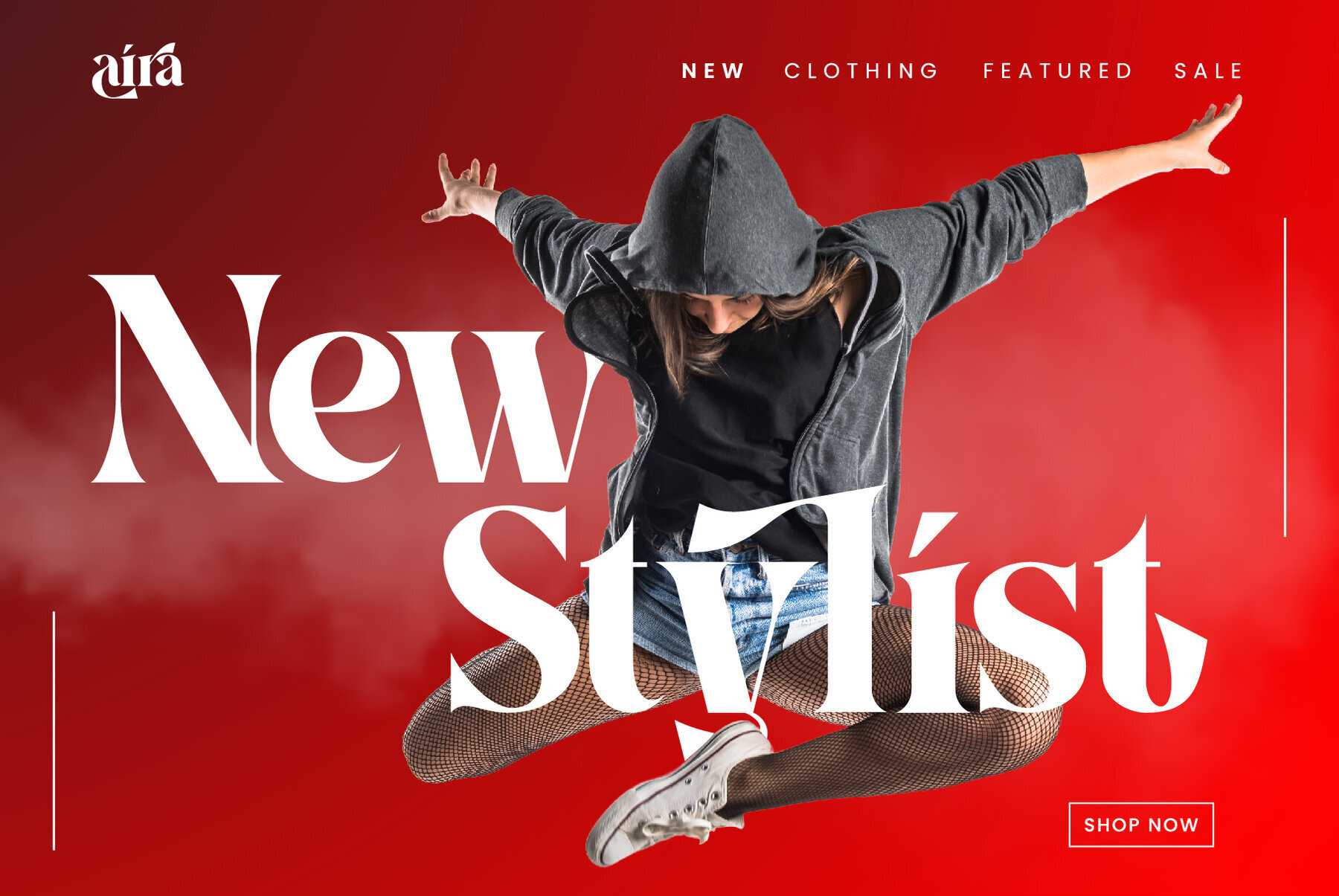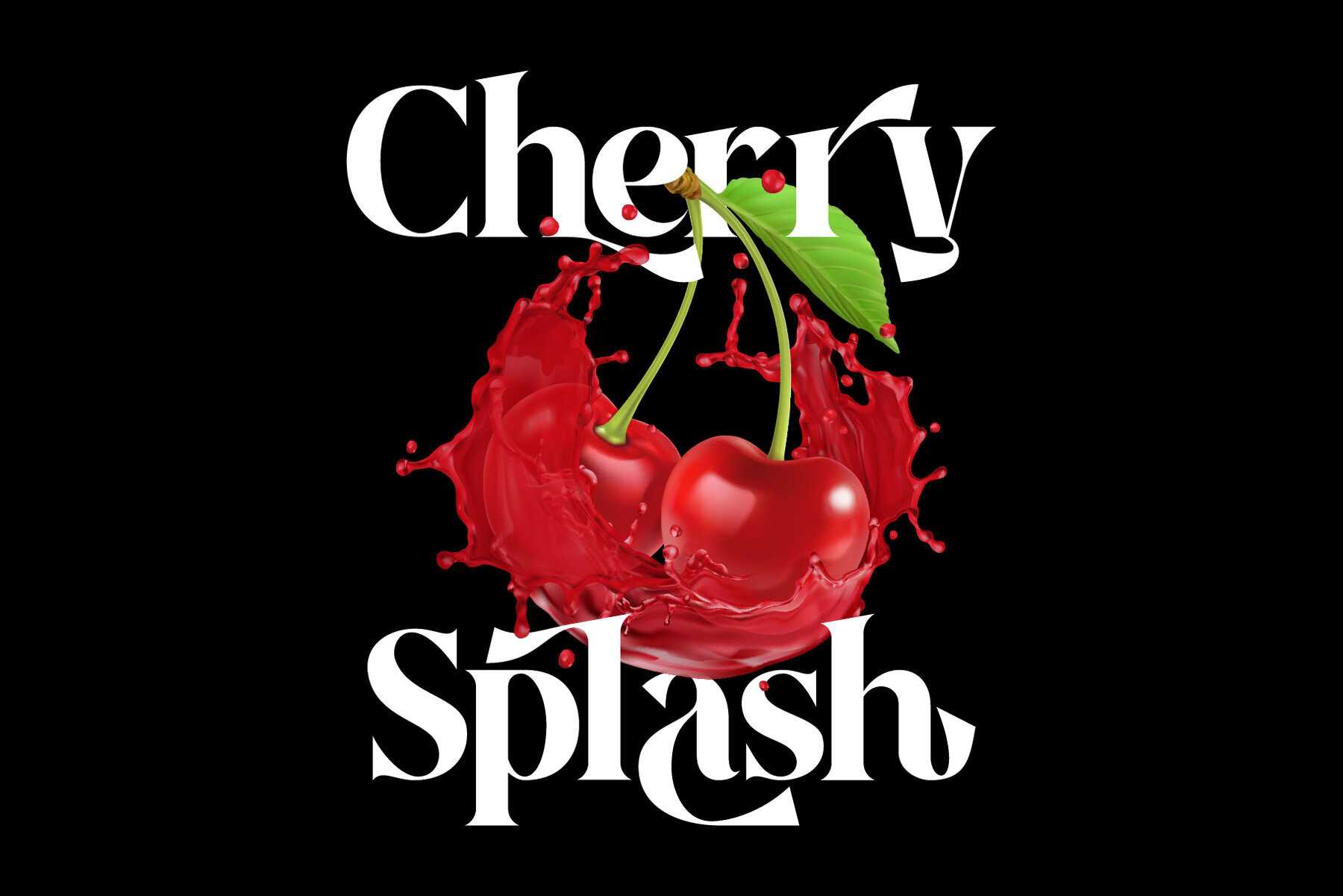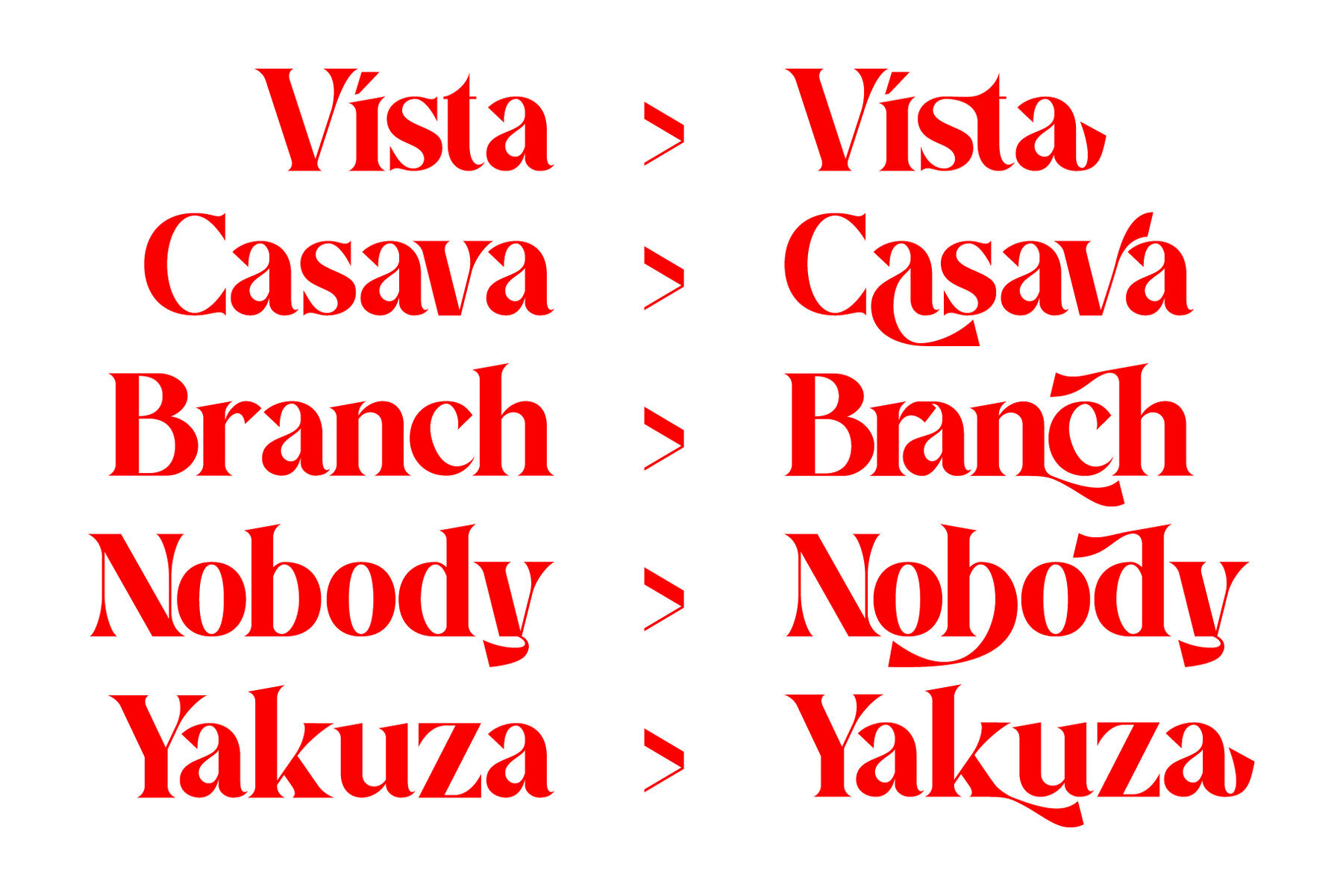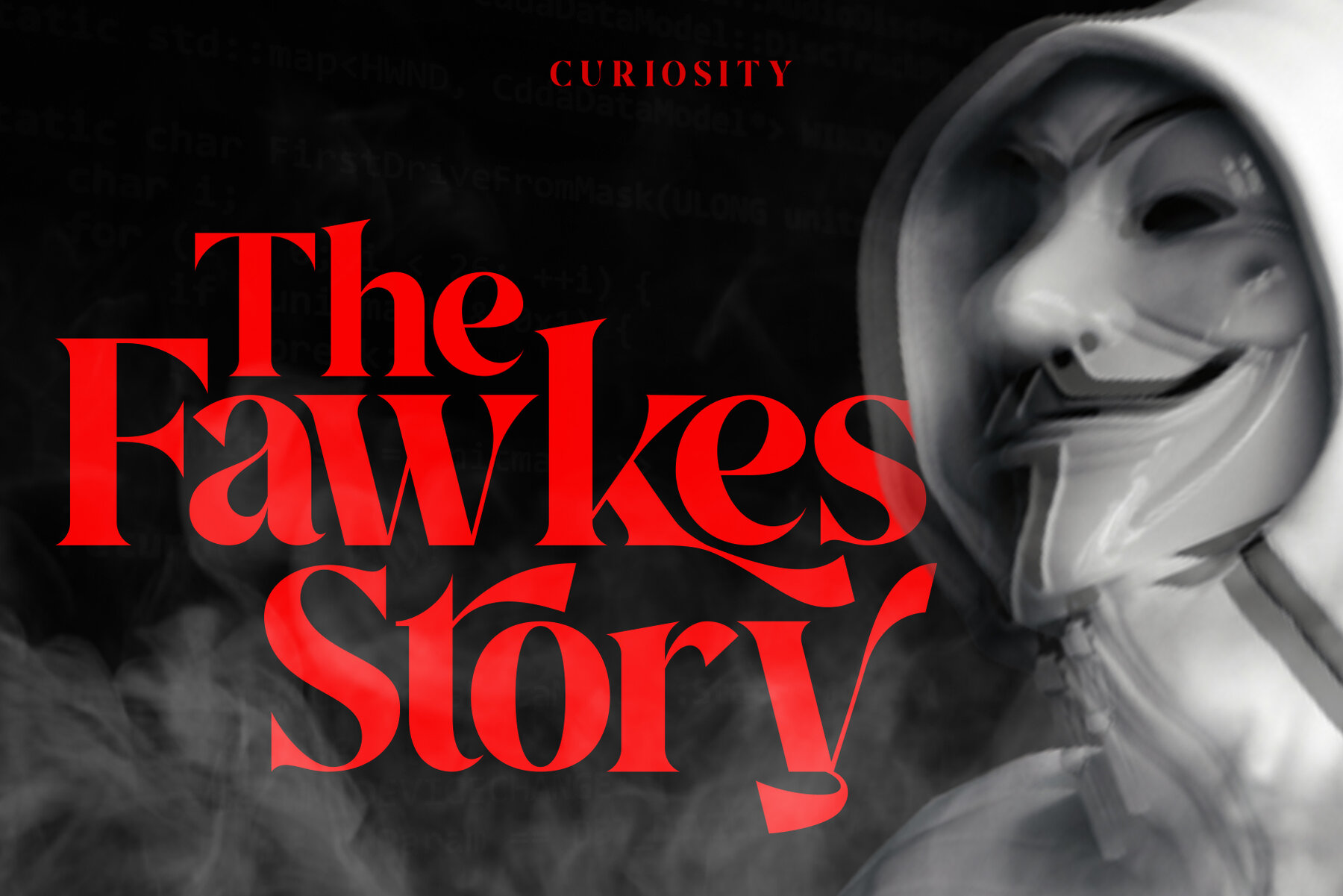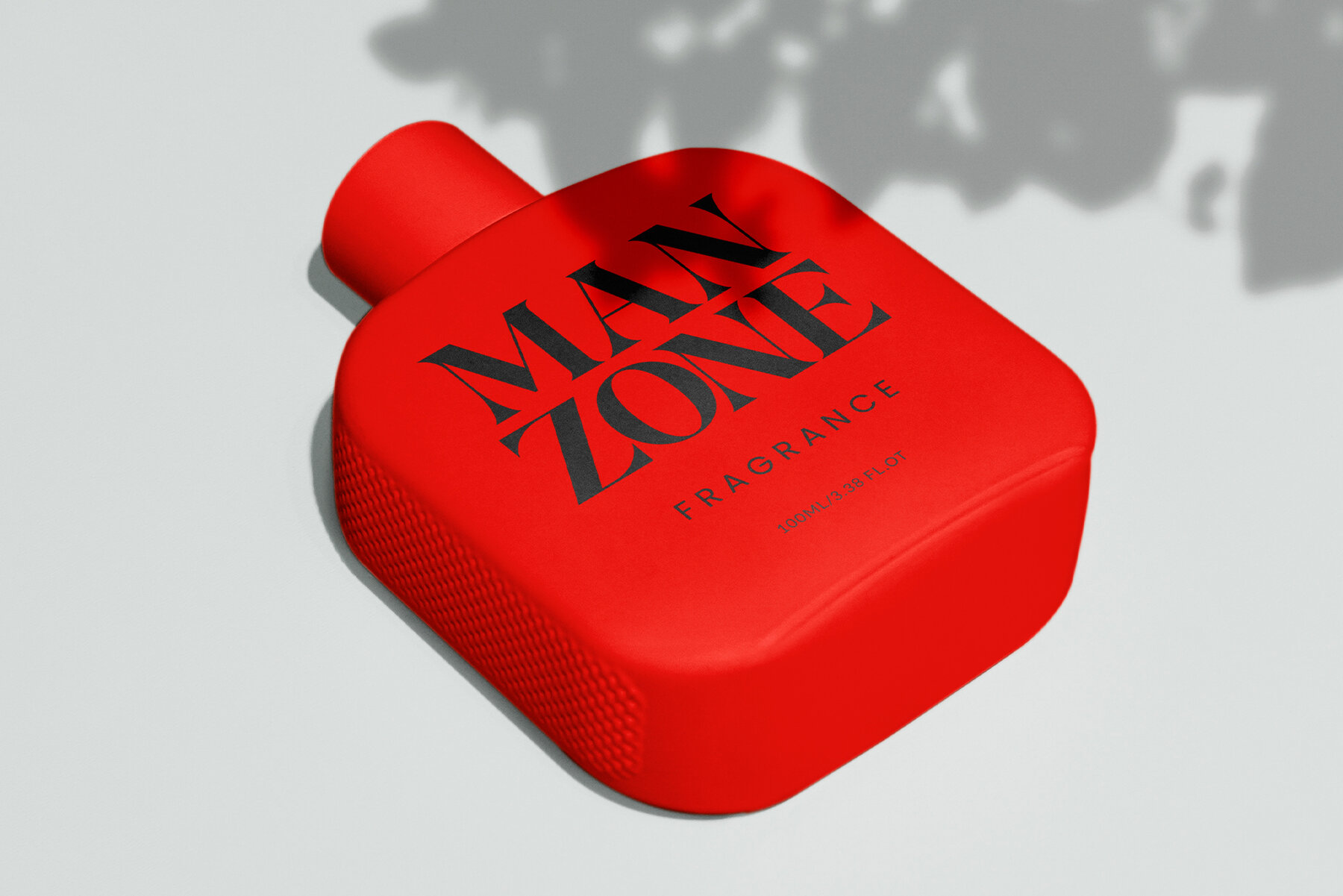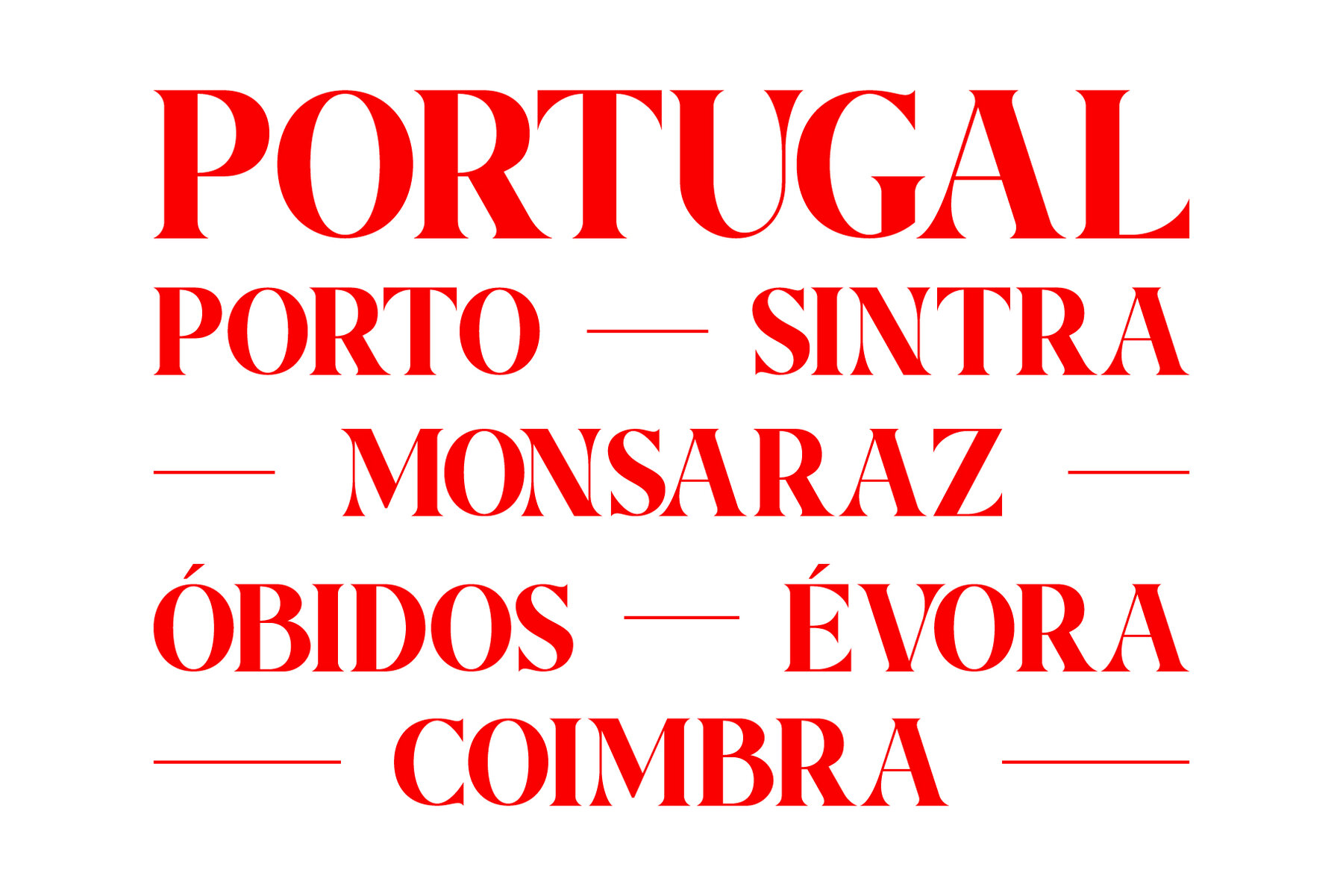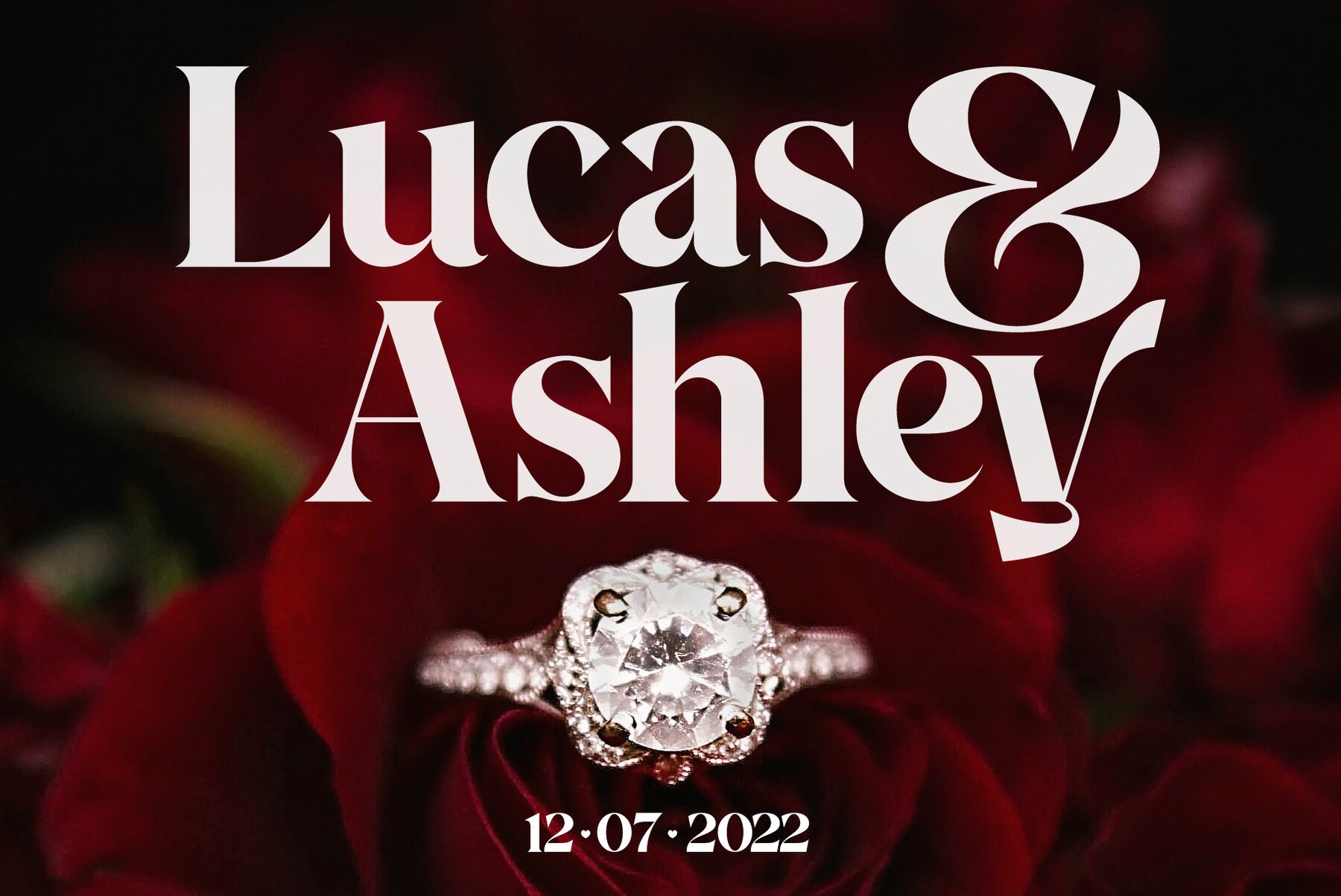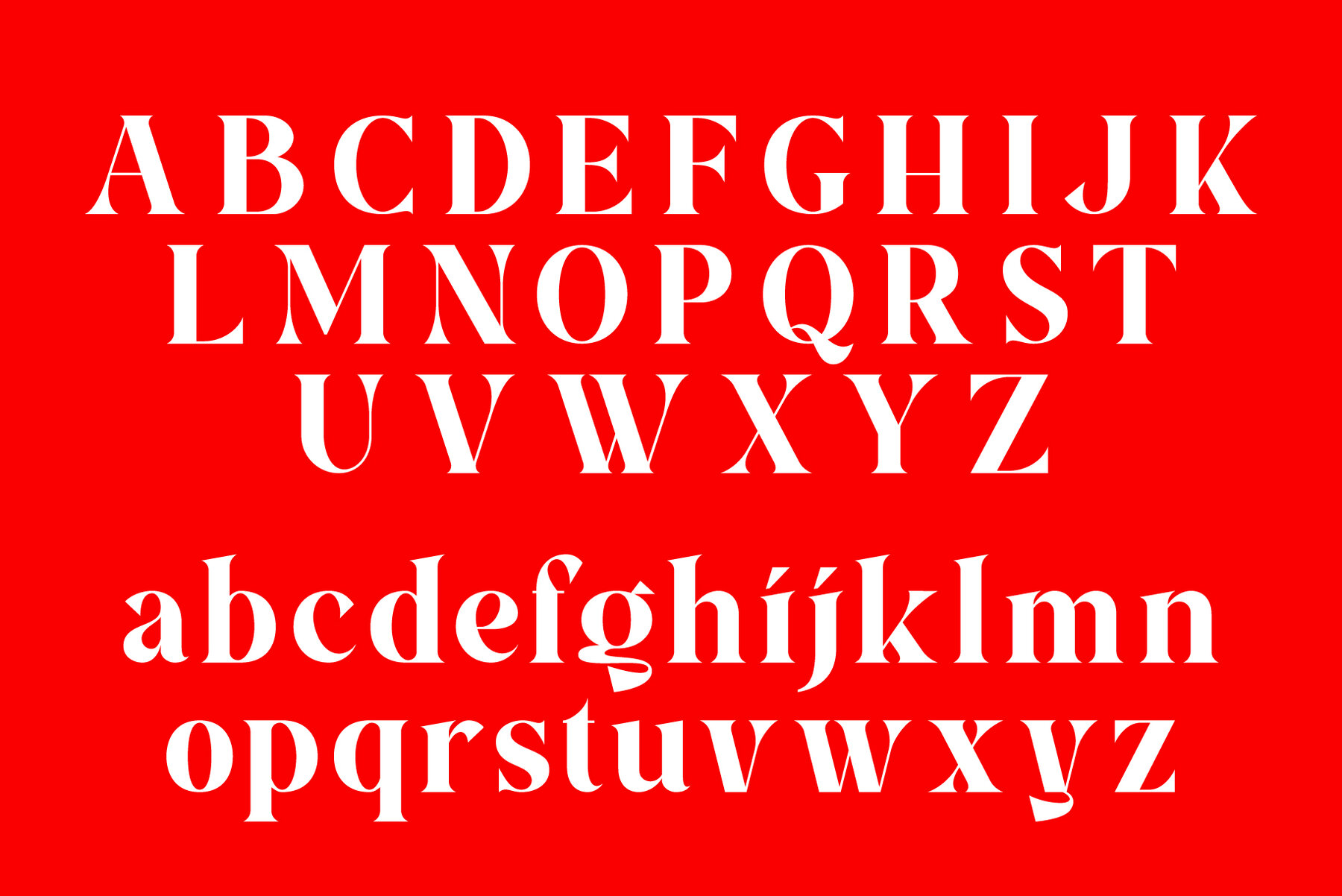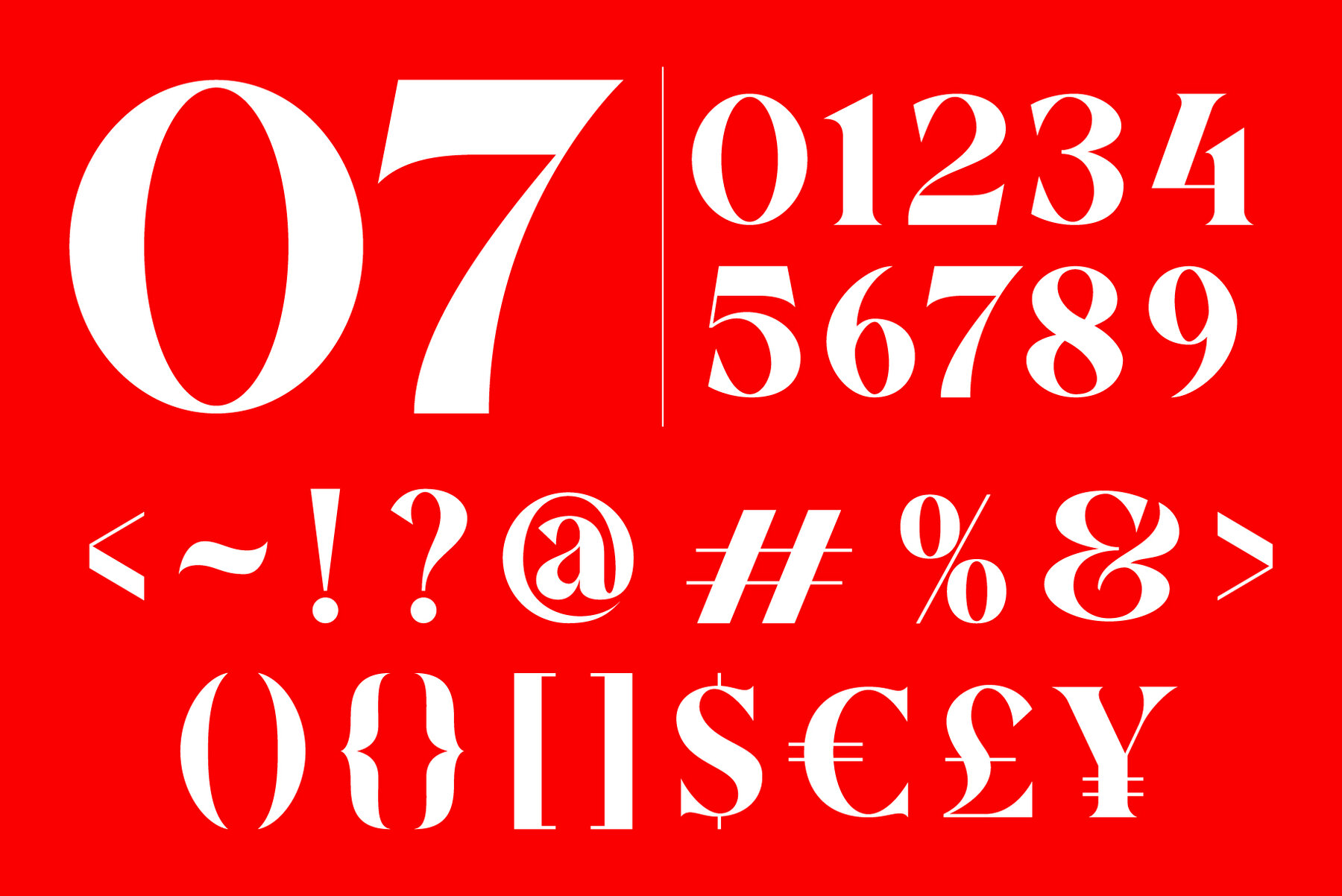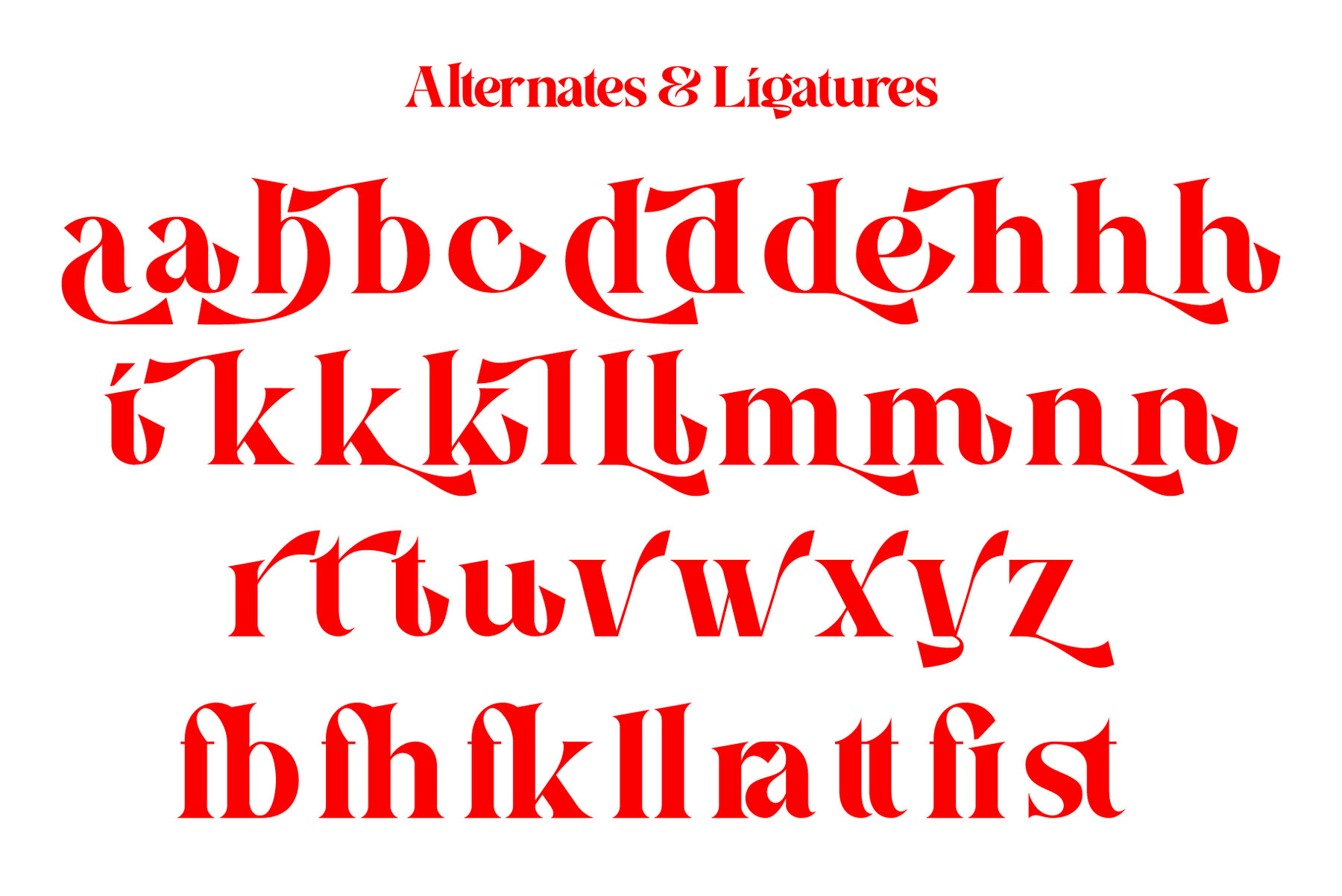
Aira 1
Aira is a serif font with a modern style that is designed very neatly and boldly, especially for designers and clients who want to have a classic yet trendy design concept, with 35 alternative lowercase letters and 9 ligatures, as an option for those of you who want to add a unique touch to your design.